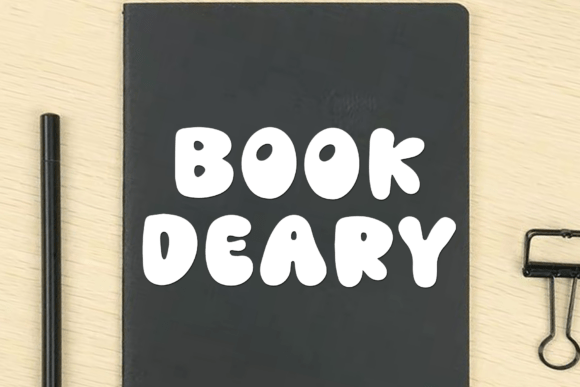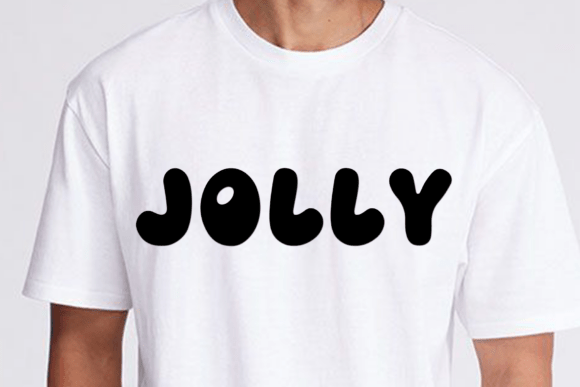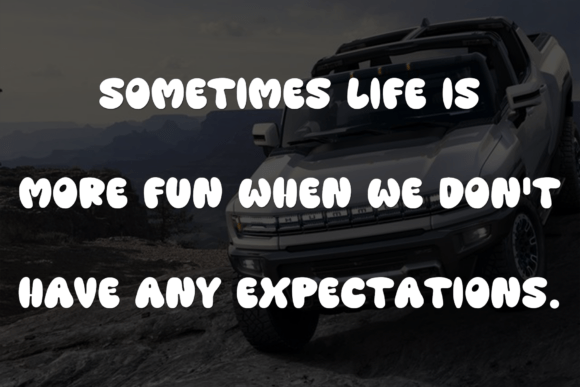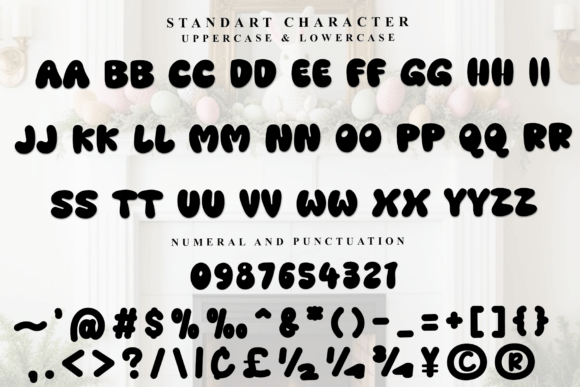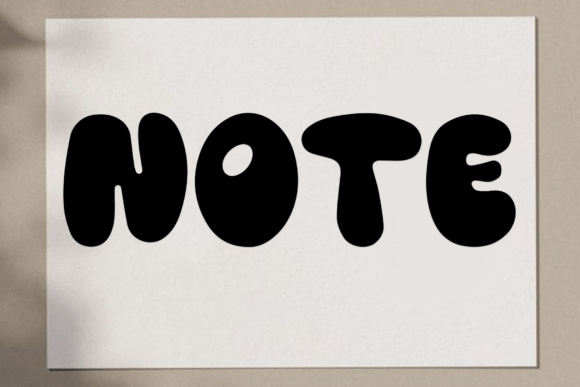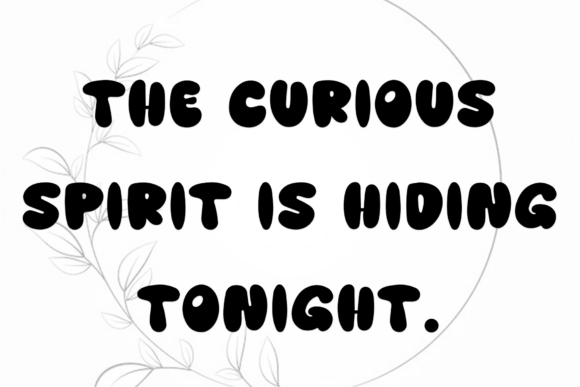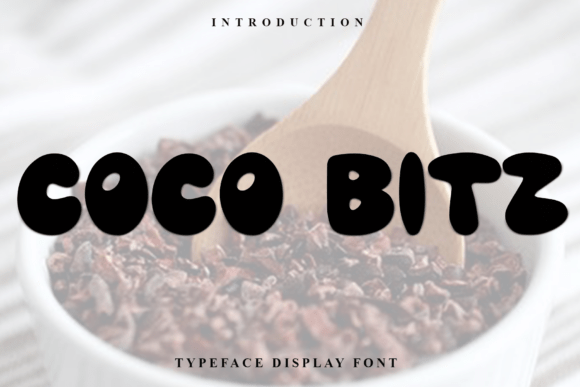
Coco Bitz Font: The Ultimate Holiday Typeface for Your Designs
The holiday season is upon us, and what better way to get into the festive spirit than with a font that’s merry, bright, and full of cheer? Look no further than Coco Bitz, a delightful typeface that’s sure to add a touch of enchantment to your designs. In this article, we’ll take a closer look at what makes Coco Bitz so special and why it’s the perfect choice for your holiday-themed projects.
Coco Bitz is a decorative font that’s specifically designed to capture the magic of the holiday season. With its whimsical flair and playful elements, it’s the perfect way to add some festive fun to your designs. Whether you’re creating greeting cards, gift tags, or holiday-themed projects, Coco Bitz is sure to bring a smile to your face and a touch of nostalgia to your words.
Coco Bitz is a versatile font that’s perfect for designers and crafters alike. Its decorative elements and whimsical flair make it ideal for a wide range of projects, from holiday greeting cards and gift tags to festive posters and social media graphics. Whether you’re a professional designer or a crafter looking for a special font to add some personality to your projects, Coco Bitz is the perfect choice.
What You Can Create with Coco Bitz
With Coco Bitz, the possibilities are endless. Here are just a few ideas to get you started:
- Holiday greeting cards and gift tags
- Festive posters and social media graphics
- Enchanted invitations and party decorations
- Magical scrapbooking and journaling projects
- Whimsical website headers and blog graphics
Why Choose Coco Bitz?
So why choose Coco Bitz over other holiday fonts? Here are just a few reasons:
- Unique and festive design that’s sure to stand out
- Perfect for a wide range of holiday-themed projects